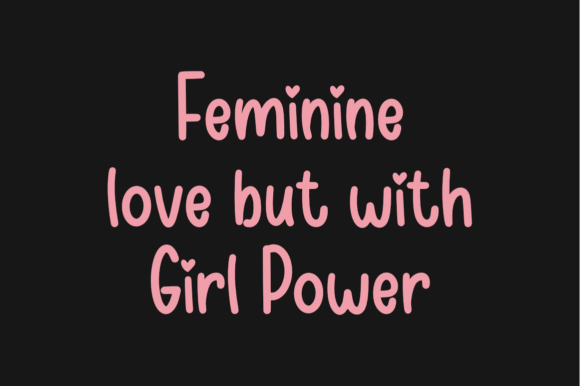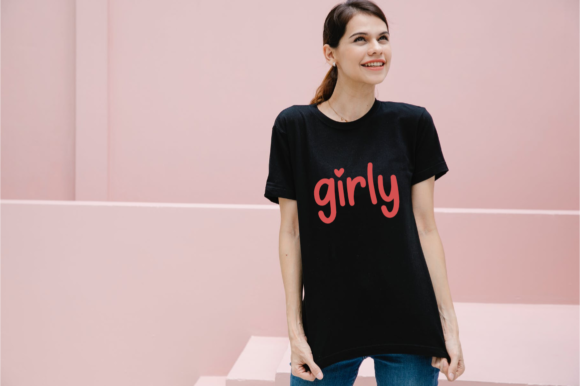
Pinkyboy Font
db-ku.com - Script & Handwritten -- Pinkyboy is a sweet and friendly handwritten font. Its natural and unique style makes it incredibly fitting to a large pool of designs. The only limit is your imagination!